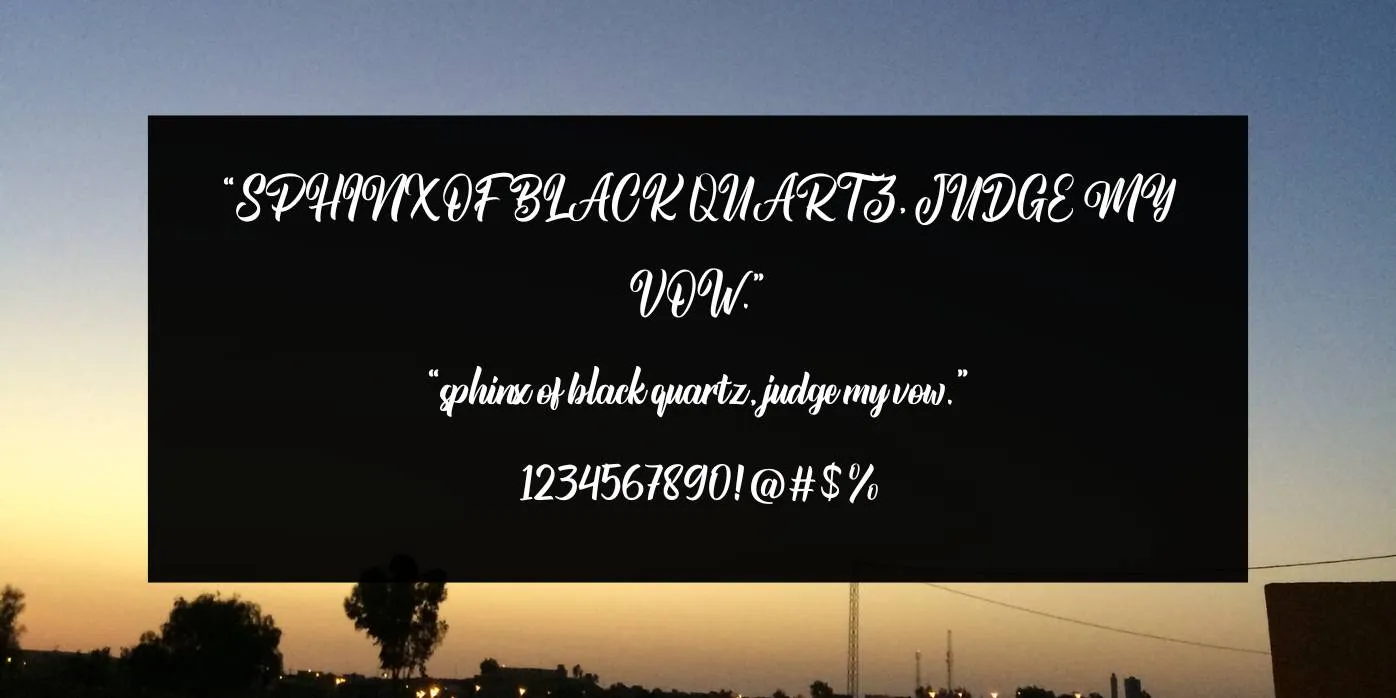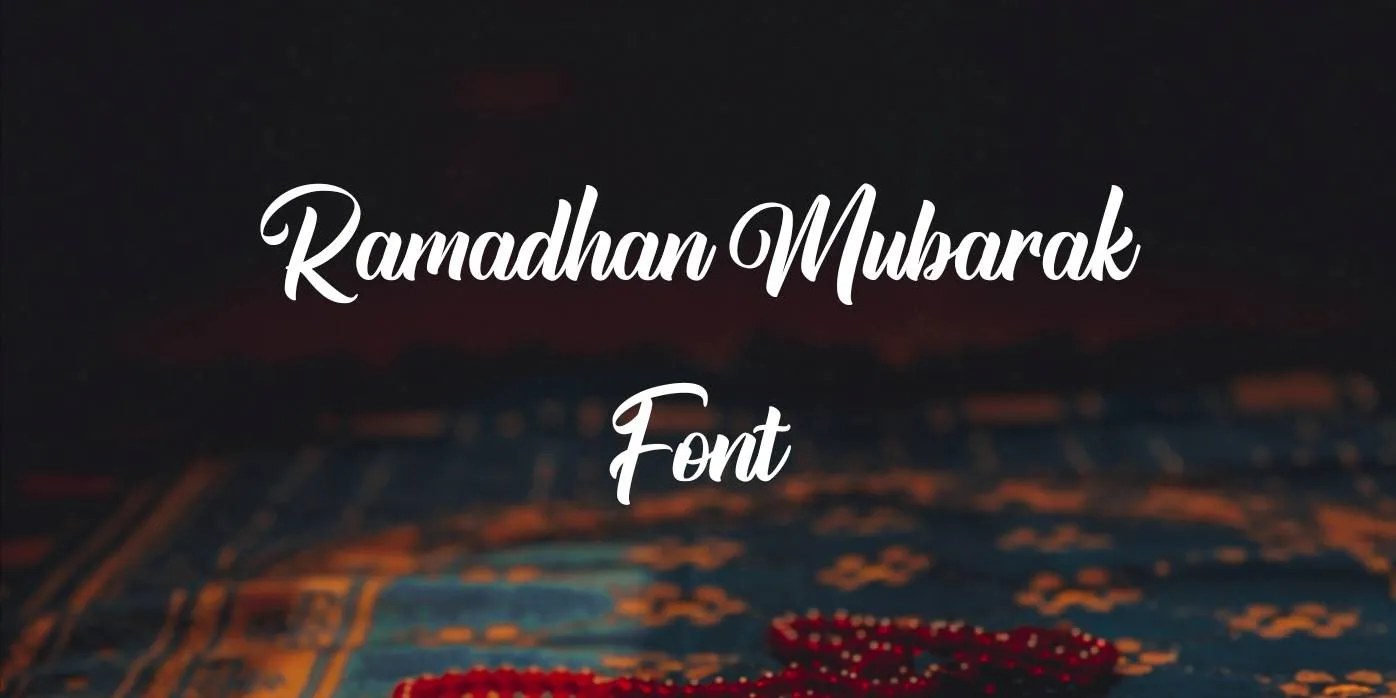
Ramadhan Mubarak Font
Here we discuss detailed information about the Ramadhan Mubarak Font. It was designed by Andri Ardianto & Madatype Studios. This font is specially designed for the event of Ramadhan. It has a very classy look and it is a very nice calligraphy font.
You can pair this font with other fonts like arunika font to give a more attractive look to your projects. The weight of the font is Semi-bold and its width is medium(normal). Its pattern nature is Italic and gives a very elegant look. An online generator also supports it to check or change simple text into a stylish look without downloading the font.